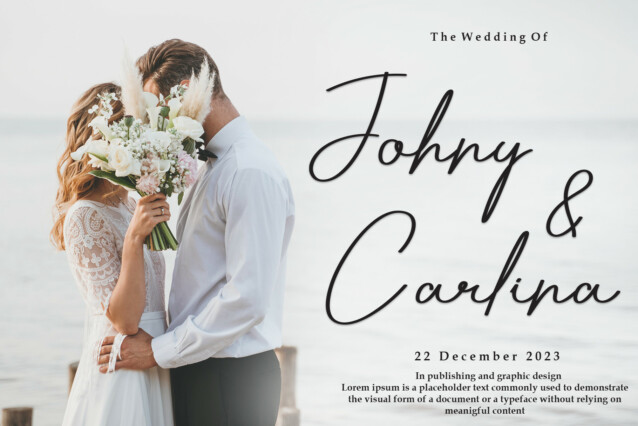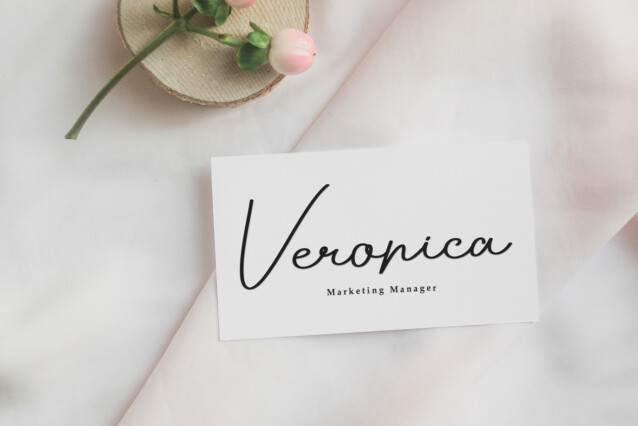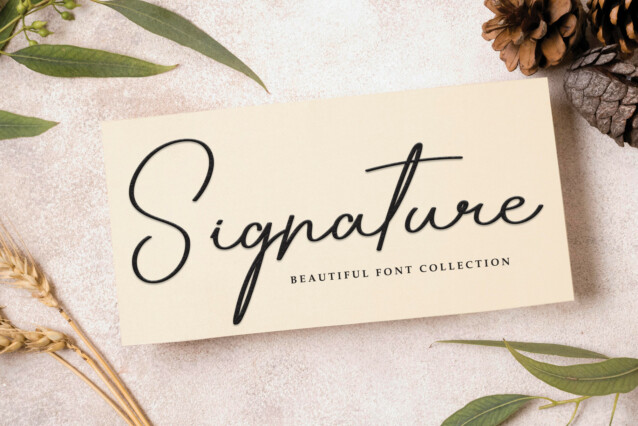
Audrey Signature Font
Audrey Signature Font is an elegant and sophisticated italic handwriting signature font. With its flowing strokes and delicate curves, Audrey Signature captures the essence of a handwritten signature, adding a personal and refined touch to any design project. Whether used for logos, branding, invitations, or personal correspondence, this font lends an air of sophistication and grace to any text.